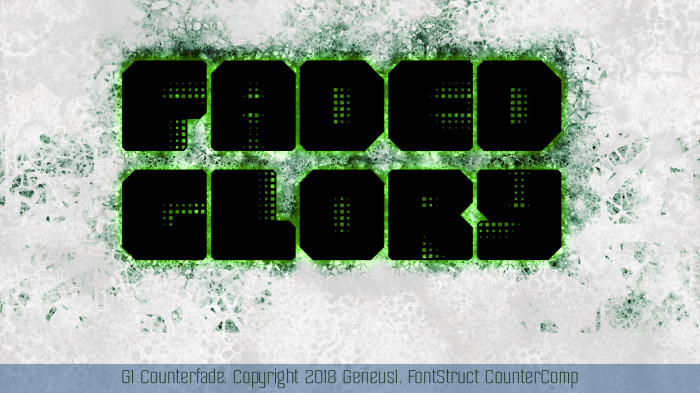
G1 Counterfade
by geneus1
G1 Counterfade. Its got faded halftoned counters. Who would've thought.
An excellent fade effect, looks even better at pixel size.
And a great and rotund font, BTW.
Congratulations, I like the idea of counters being at the top of a kind of grid support.